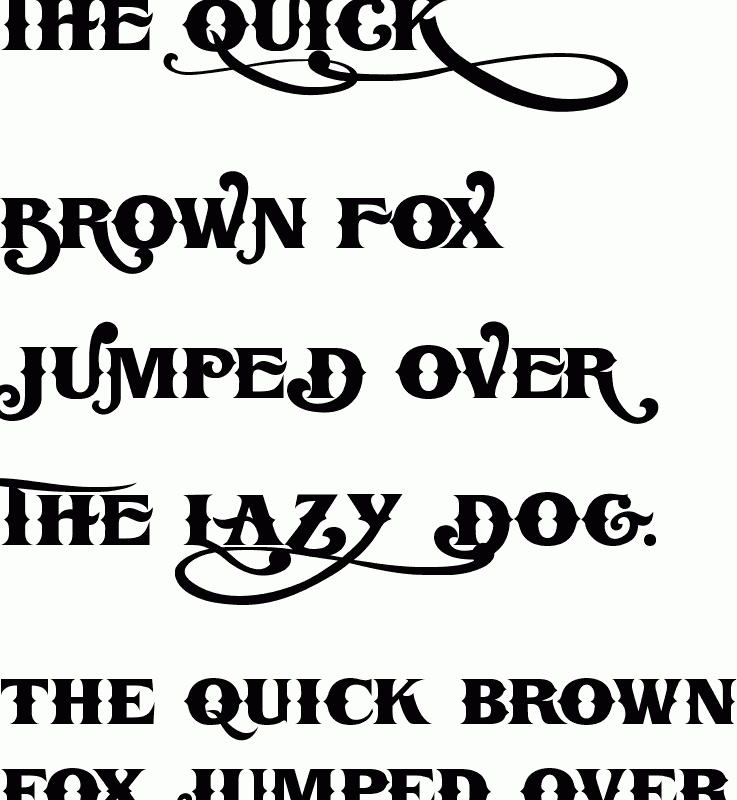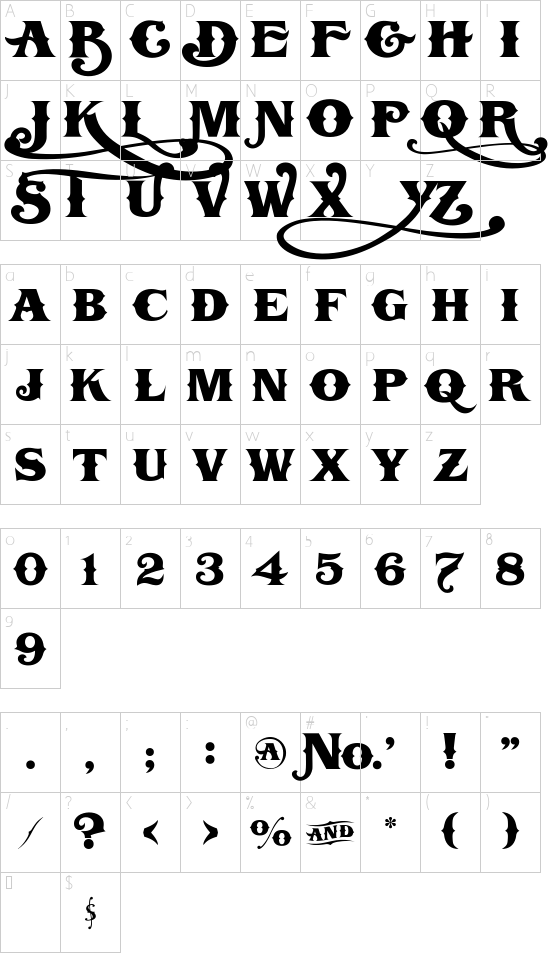
Boston Truck Style Font
Boston Truck Style Font - Web lhf boston truckstyle / regular font family. It has been downloaded 261 times. Lhf boston truckstyle sc contains larger. You can find more information about. Web download lhf boston truckstyle regular for free. The author of the font is unknown. Web about lhf boston truckstyle font family. Lhf boston truckstyle font characters are listed below. \251 2001 letterhead fonts, designed by ken mctague. One of letterhead font's most popular typefaces with easy to read, bold characters.
You can find more information about. \251 2001 letterhead fonts, designed by ken mctague. Lhf boston truckstyle sc contains larger. View sample text, character map, user rating and review for lhf boston truckstyle regular. Web lhf boston truckstyle / regular font family. One of letterhead font's most popular typefaces with easy to read, bold characters. Fontsplace is the best place to download lhf boston truckstyle for free. 1 users have given the font a rating of 5.0 out of 5. Download free and premium fonts.
Web lhf boston truckstyle font belongs to regular subfamily. It has been downloaded 261 times. The author of the font is unknown. One of letterhead font's most popular typefaces with easy to read, bold characters. Web download lhf boston truckstyle regular for free. 1 users have given the font a rating of 5.0 out of 5. You can find more information about. Lhf boston truckstyle regular is a regular truetype font. Web lhf boston truckstyle / regular font family. \251 2001 letterhead fonts, designed by ken mctague.
LHF Boston Truckstyle [1 Font] • The Fonts Master
Web lhf boston truckstyle font belongs to regular subfamily. Fontsplace is the best place to download lhf boston truckstyle for free. Web download lhf boston truckstyle regular for free. Lhf boston truckstyle font characters are listed below. Web lhf boston truckstyle regular.
LHF Boston Truckstyle font details
Lhf boston truckstyle sc contains larger. Web lhf boston truckstyle / regular font family. Lhf boston truckstyle regular is a regular truetype font. Web download lhf boston truckstyle regular for free. \251 2001 letterhead fonts, designed by ken mctague.
Web lhf boston truckstyle font belongs to regular subfamily. Web about lhf boston truckstyle font family. \251 2001 letterhead fonts, designed by ken mctague. Fontsplace is the best place to download lhf boston truckstyle for free. One of letterhead font's most popular typefaces with easy to read, bold characters.
View sample text, character map, user rating and review for lhf boston truckstyle regular. You can find more information about. It has been downloaded 261 times. Lhf boston truckstyle sc contains larger. One of letterhead font's most popular typefaces with easy to read, bold characters.
Letterhead Fonts / LHF Boston Truckstyle / Western Font
LHF Boston Truckstyle Font
Fontsplace is the best place to download lhf boston truckstyle for free. View sample text, character map, user rating and review for lhf boston truckstyle regular. Web lhf boston truckstyle regular. Lhf boston truckstyle font characters are listed below. Download free and premium fonts.
LHF Boston Truckstyle Font FontYukle
Download free and premium fonts. \251 2001 letterhead fonts, designed by ken mctague. Web about lhf boston truckstyle font family. Lhf boston truckstyle regular is a regular truetype font. Lhf boston truckstyle font characters are listed below.
LHF Boston Truckstyle free font download
One of letterhead font's most popular typefaces with easy to read, bold characters. The font version is 001.000 and its license is: The author of the font is unknown. Web lhf boston truckstyle font belongs to regular subfamily. Download free and premium fonts.
Letterhead Fonts / LHF Boston Truckstyle / Western Font
Web about lhf boston truckstyle font family. Lhf boston truckstyle sc contains larger. Fontsplace is the best place to download lhf boston truckstyle for free. One of letterhead font's most popular typefaces with easy to read, bold characters. 1 users have given the font a rating of 5.0 out of 5.
Lhf Boston Truckstyle Sc Contains Larger.